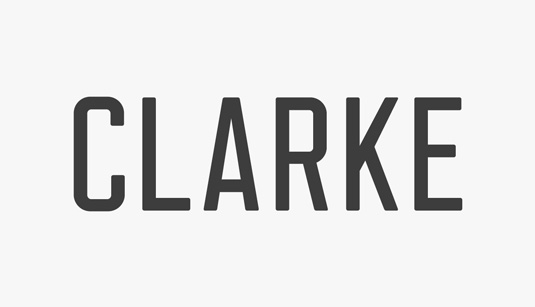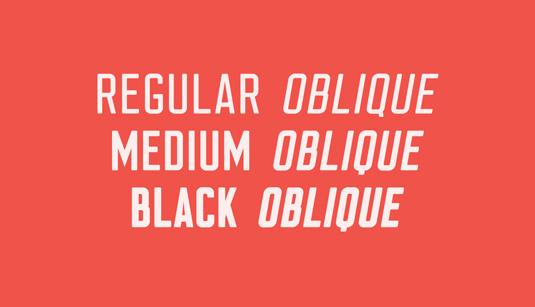
Font of the day: Clarke
Every day we showcase the best fonts on the web. Today it's Clarke by Dominik Krotscheck.
Clarke by Dominik Krotscheck
Clarke is described by font foundry Ten Dollar Fonts as a "proud, condensed, caps only, sans-serif typeface with rounded edges". Created by designer Dominik Krotscheck, the design is available in regular and oblique styles in three weights (six fonts in total).